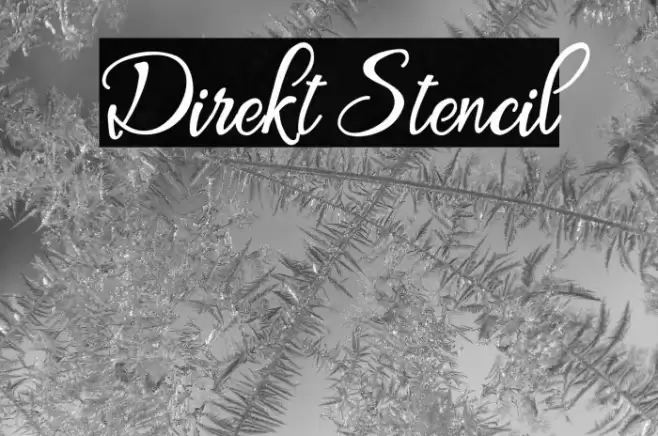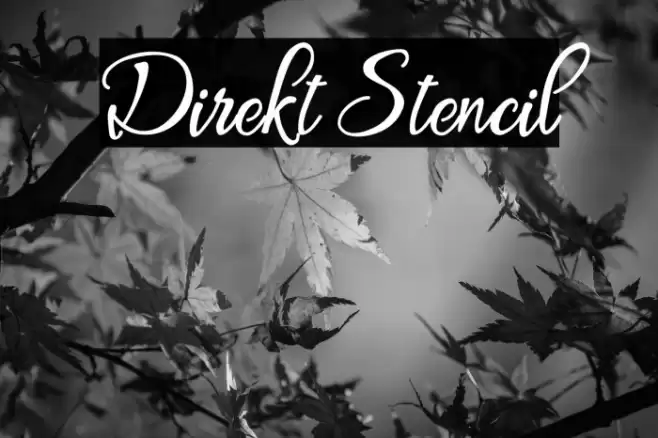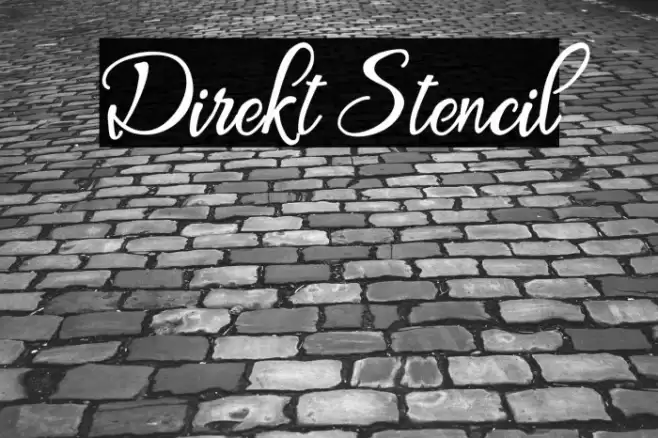
Direkt Stencil Font
Direkt Stencil Description
This font features a dynamic and flowing script style, characterized by elegant, sweeping curves and a sense of fluidity. The uppercase letters exhibit a distinct flair with elongated strokes and a slight slant, giving them a sophisticated and artistic appearance. The lowercase letters maintain a consistent style, with smooth connections and a graceful rhythm. This font is designed to convey a sense of elegance and creativity, making it suitable for projects that require a touch of sophistication and artistic expression. The overall design is balanced, with moderate contrast in stroke thickness, enhancing readability while maintaining its decorative appeal.
A dynamic and elegant script font with flowing curves and artistic flair from Regular fonts.
- Proposed Projects: Ideal for wedding invitations, branding, logo design, and artistic projects requiring a touch of elegance.
- Use Case: Logos, Invitations, Artistic projects